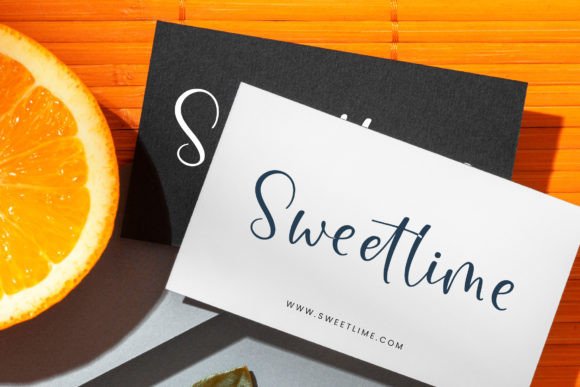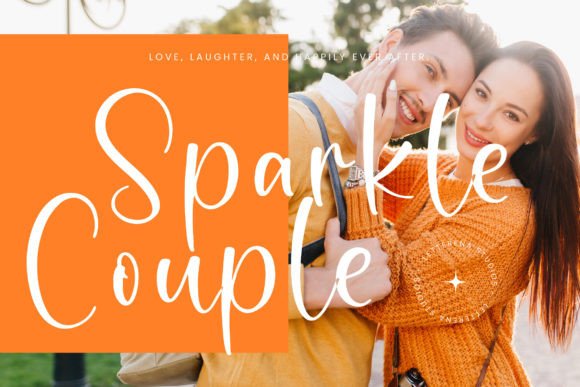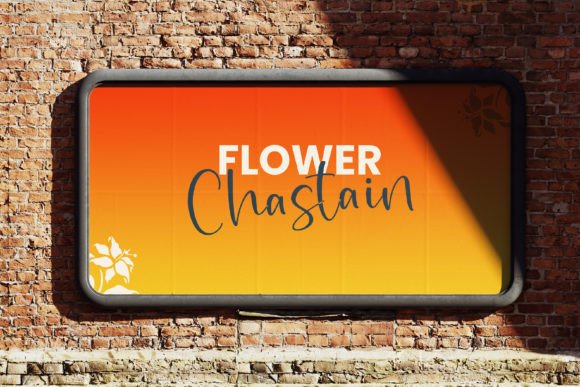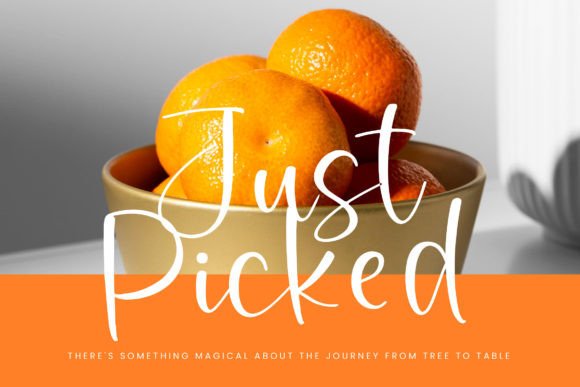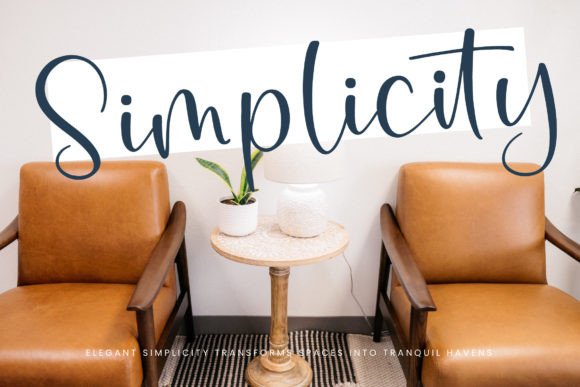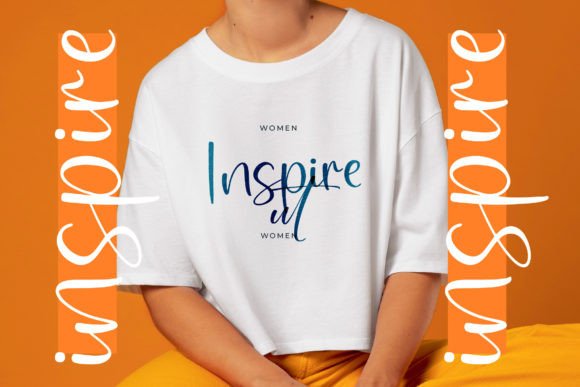
Unleash Your Creativity with the Perfect Script Font
Have you ever been stuck on a design project, unable to find the perfect font to bring your vision to life? You’re not alone. The right font can make all the difference in conveying the tone and personality of your brand or project. That’s why we’re excited to introduce you to the Basket Sixfruits Font, a luxurious script font designed to elevate your designs and leave a lasting impression.
This beautiful font, crafted by Letterena, is perfect for a wide range of projects, from logos and branding to homeware designs and product packaging. With its unique, handwritten style, the Basket Sixfruits Font adds a touch of elegance and sophistication to any design. Whether you’re a seasoned designer or just starting out, this font is a valuable addition to your toolkit, offering endless possibilities for creative expression.
Basket Sixfruits Font Key Features
• Font Family: Basket Sixfruits, a unique and playful font designed to evoke the feeling of a basket filled with six different fruits.
• Unique Characteristics: Features a custom-designed basket and fruit illustrations, adding a touch of whimsy and personality to any design.
Basket Sixfruits Font Review
Overall, I’m quite impressed with the Basket Sixfruits Font, and here’s why: ✨ It’s perfect for creating a whimsical and playful atmosphere in any design project. ✨ The font’s unique mix of modern and vintage elements makes it incredibly versatile. ✨ The six-fruit design on the ‘g’ and ‘q’ characters is an especially delightful touch.
• Well-suited for packaging, food labels, and other branding materials
• Can be used for digital and print projects
• Impressive letter spacing and kerning
However, there are a few limitations to consider: ⚠️ The font can be a bit tricky to read in smaller sizes. ⚠️ Some characters may not be as detailed as others, which could be an issue in certain contexts. ⚠️ The font’s overall feel may not be to everyone’s taste.
Despite these limitations, I think the Basket Sixfruits Font is a great addition to any designer’s toolkit. With some careful planning and consideration, it can add a unique and eye-catching touch to a wide range of projects.
Use the Basket Sixfruits Font for:
1. Creating a playful and modern look for food and beverage branding.
2. Designing packaging and labels for fresh produce.
3. Creating a whimsical and eye-catching look for events and promotions.